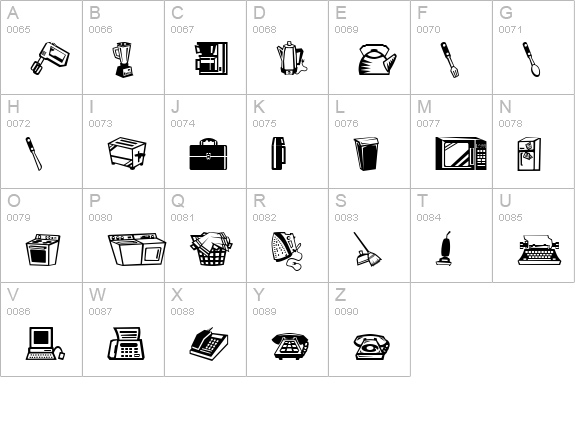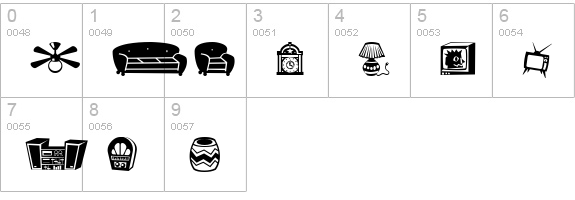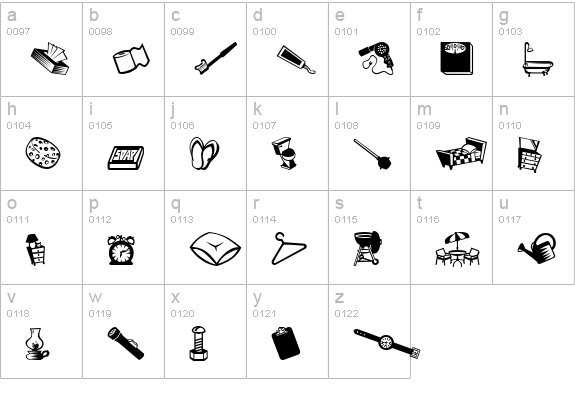
Mini Pics Lil Stuff Font Details
Mini Pics Lil Stuff font is a charming and playful typeface that exudes a youthful and fun vibe. With its quirky design and whimsical appearance, this font is perfect for adding a touch of creativity to your projects. The rounded edges and unique letterforms make Mini Pics Lil Stuff a standout choice for any design that needs a lighthearted and friendly feel. The best part? Mini Pics Lil Stuff font is completely free to download at FontsMarket.com. This means you can easily access this delightful font and use it in your personal or commercial projects without any cost. So why wait? Add a touch of whimsy to your designs today with Mini Pics Lil Stuff font!